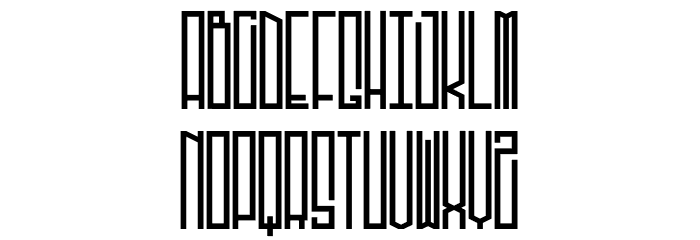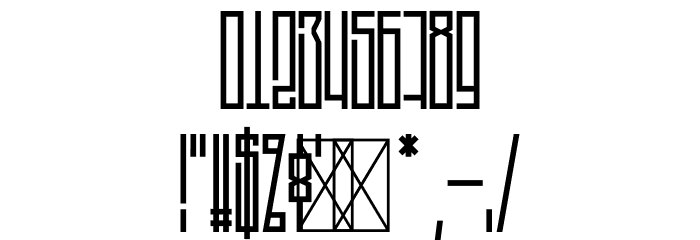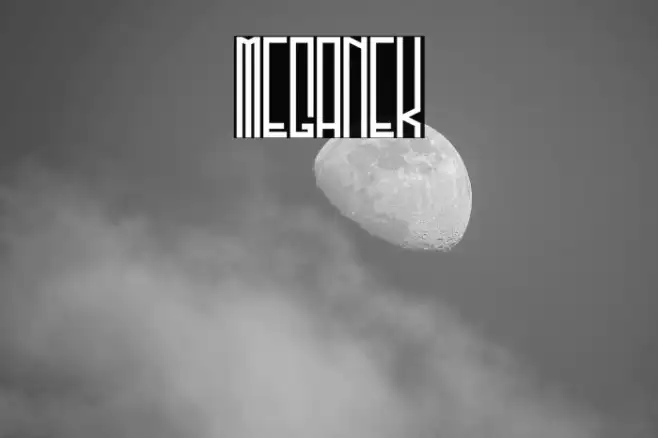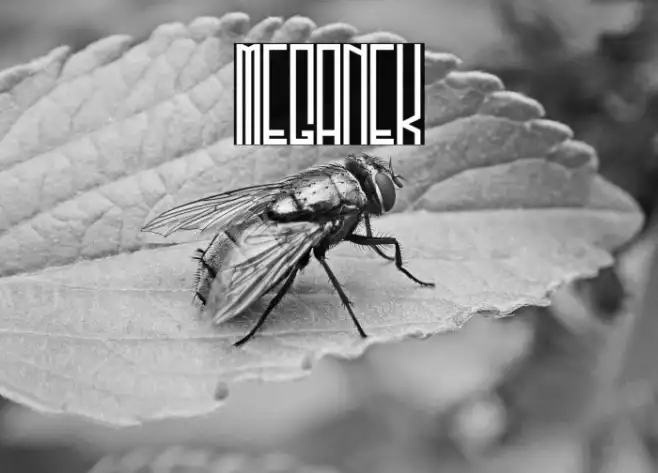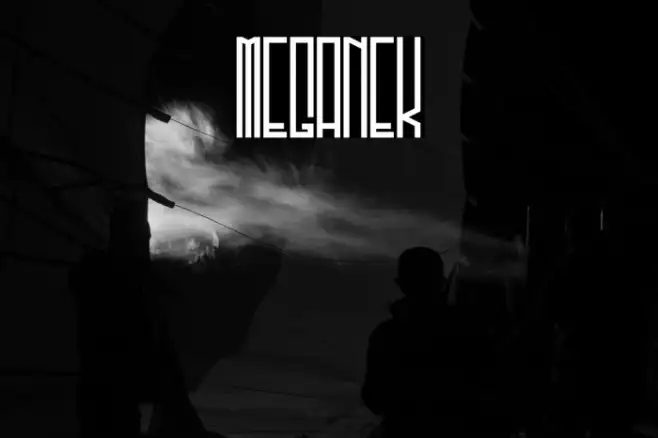
Meganek Font
This font features a highly geometric and condensed style, characterized by its tall and narrow letterforms. The design is reminiscent of modern architectural elements, with a strong emphasis on vertical lines and sharp angles. Each character is constructed with uniform stroke widths, contributing to a cohesive and structured appearance. The uppercase and lowercase letters maintain a consistent height, enhancing the font's uniformity. The numerals and special characters follow the same design principles, ensuring a seamless integration across all glyphs. This font's unique style makes it ideal for projects that require a bold and futuristic aesthetic.
A geometric, condensed font with uniform stroke widths and a modern, architectural style.
- Proposed Projects: Ideal for futuristic branding, architectural magazines, tech-related posters, and modern art installations.
- Character Spacing: Tight